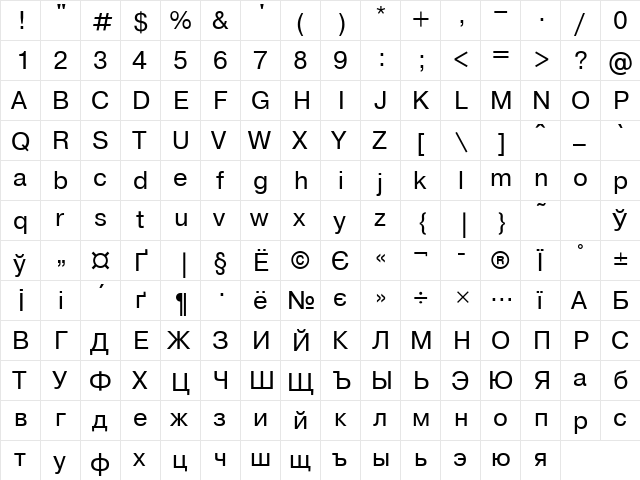
PragmaticaRoman Regular
Design Context for PragmaticaRoman Typeface
PragmaticaRoman is a composed and adaptable typeface that performs quietly and consistently across a wide range of design contexts.
Pro Tip: Use PragmaticaRoman in both headline and body roles to test its range before committing to a single application.